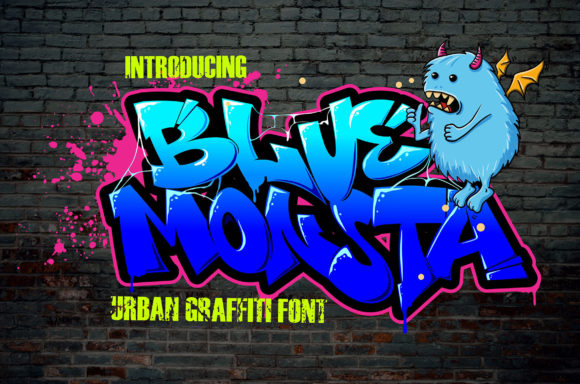
Blue Monsta: A Graffiti-Style Font for Bold Design Projects
Blue Monsta is a distinctive display font that combines the edgy aesthetics of graffiti with modern typography. Its unique style makes it an ideal choice for designers looking to add a strong visual identity to their work. Whether used in branding, headings, or creative illustrations, Blue Monsta offers a striking presence that can elevate a wide range of design projects.
What Is Blue Monsta?
Blue Monsta is a graffiti-style display font designed to capture attention and convey energy. It features bold, exaggerated letterforms that resemble hand-painted tags or street art. The font's irregular shapes and dynamic strokes give it a raw, unpolished feel that stands out in any design context. Unlike traditional fonts, Blue Monsta is not meant for body text but rather for headlines, logos, and other visual elements where impact is key.
Why Consider Blue Monsta?
Designers may choose Blue Monsta for its ability to create a strong visual statement. Its graffiti-inspired look is particularly appealing for projects targeting younger audiences or those with a contemporary, urban vibe. For instance, it could be used in music festival posters, skateboarding apparel, or event invitations that aim to communicate a sense of rebellion or creativity.
The fontβs distinctiveness also makes it valuable for branding purposes. Companies or individuals looking to establish a memorable identity might find Blue Monsta useful in creating a signature logo or tagline. Its boldness can help differentiate a brand from competitors, especially in industries where visual uniqueness is important.
Benefits of Using Blue Monsta
One of the primary advantages of Blue Monsta is its ability to draw immediate attention. Its unconventional design ensures that text using this font is unlikely to go unnoticed. This quality makes it highly effective for headlines, banners, and other prominent design elements.
Additionally, Blue Monsta can add a layer of authenticity to designs that aim to reflect a street culture or artistic movement. Its graffiti roots make it a fitting choice for projects that seek to evoke a sense of urban creativity or countercultural expression.
Tradeoffs and Considerations
While Blue Monsta has many strengths, it is not a one-size-fits-all solution. Its bold and irregular design may not be suitable for all types of projects. For example, in professional or formal settings, the font could appear too chaotic or unrefined. In such cases, more traditional fonts might be more appropriate.
Another consideration is readability. Blue Monsta is best used in short phrases or titles rather than long blocks of text. Its stylized letters may be difficult to read when used in extended content, which limits its practicality for certain applications.
Situations Where Blue Monsta Fits Well
Blue Monsta excels in contexts where visual impact is more important than legibility. It works well in graphic design projects such as album covers, social media visuals, and promotional materials. Its style also complements creative fields like fashion, where a bold aesthetic can enhance the overall look of a product or campaign.
In wedding designs, Blue Monsta can be used to create eye-catching invitations or signage that stand out from conventional fonts. Similarly, in wall art or illustration, it can serve as a focal point that adds character and depth to the composition.
When Alternatives May Be Better
For projects requiring a more polished or versatile font, alternatives to Blue Monsta may be preferable. Fonts with cleaner lines and consistent spacing are often better suited for business branding, editorial layouts, or user interface design. These alternatives provide greater flexibility and ensure that the text remains readable across different formats and sizes.
Designers should also consider the target audience when selecting a font. If the intended audience values professionalism or simplicity, a more conventional typeface may be more effective than a graffiti-style font like Blue Monsta.
Decision-Making Insights
When evaluating whether to use Blue Monsta, designers should ask themselves several key questions. Does the project require a strong visual identity? Will the font align with the overall tone and message of the design? Is the audience likely to respond positively to its style?
Itβs also important to test the font in different contexts. Previewing Blue Monsta in various design scenarios can help determine whether it enhances or detracts from the final outcome. Experimentation with size, color, and placement can reveal how effectively the font communicates the desired message.
Ultimately, the decision to use Blue Monsta should be based on how well it supports the design goals. If the objective is to create a bold, attention-grabbing element, then Blue Monsta can be an excellent choice. However, if clarity and versatility are priorities, alternative fonts may be more appropriate.
By carefully considering the benefits, limitations, and appropriate use cases, designers can determine whether Blue Monsta aligns with their goals. When used thoughtfully, it can add a distinctive flair that elevates a design from ordinary to extraordinary.